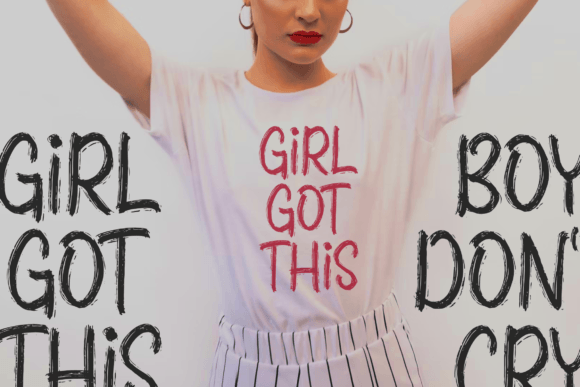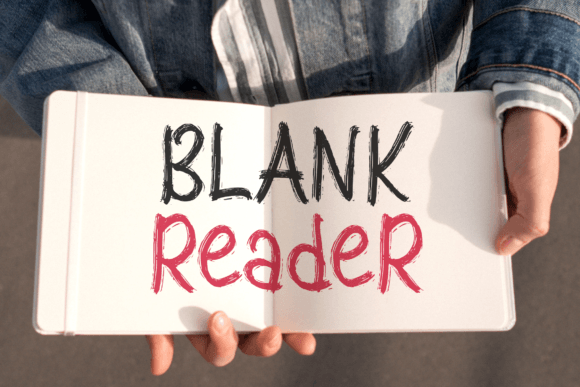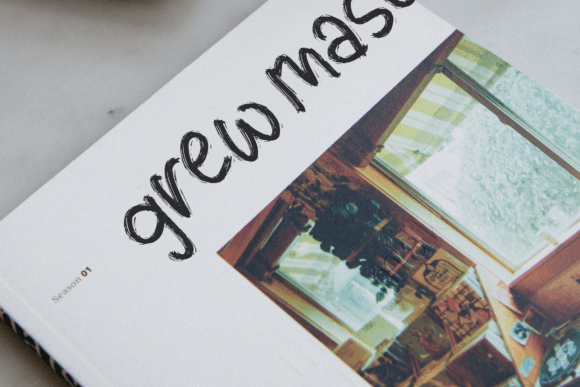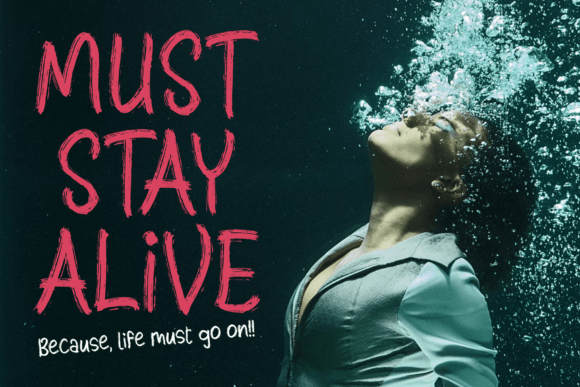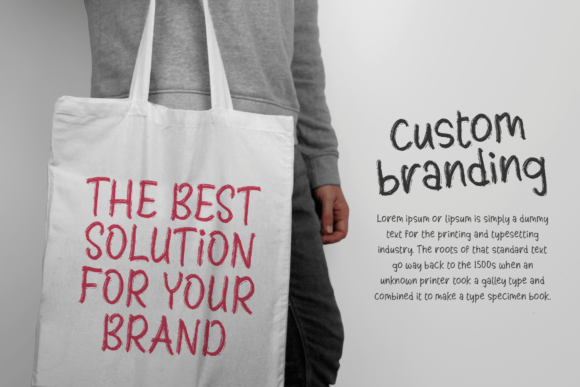
Introduction to Clownsy Shock Font
Clownsy Shock – Spooky Brush Font suitable for any projects such as logos, branding projects, homeware designs, product packaging, mugs, quotes, posters, shopping bags, t-shirts, book covers, name cards, invitation cards, greeting cards, labels, photography, watermark, special events, and all your other lovely projects that need a unique script taste.
Key Features of Clownsy Shock Font
Why Choose Clownsy Shock Font?
Clownsy Shock Font offers exceptional quality and versatility, making it a valuable addition to your design toolkit. Whether you’re creating for personal projects or commercial use, Clownsy Shock Font delivers professional results.